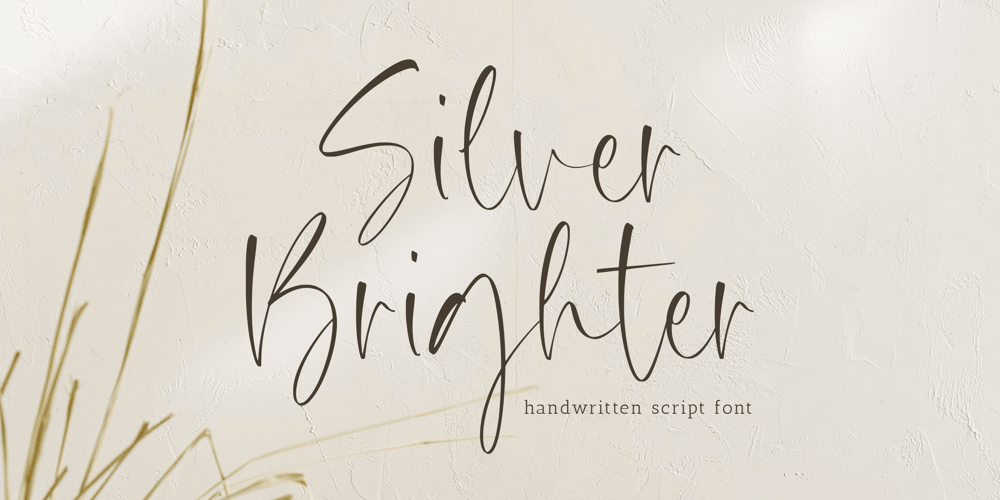
Silver Brighter Font Family was designed by Wara Sigit Tri Pamungkas and published by Timurtype. Silver Brighter contains 1 styles and family package options. Introducing by Timur typeProudly Present, Silver Brighter A Handwritten FontSilver Brighter is perfect for product packaging, branding project, megazine, social media, wedding, or just used to express words above the background.This Silver Brighter font includes:-Full Set of standard alphabet and punctuation & symbol-Extra set Alternate ending lowercase-multilingual support.Embelish your designs with our original fonts.Enjoy the font, Thank you!